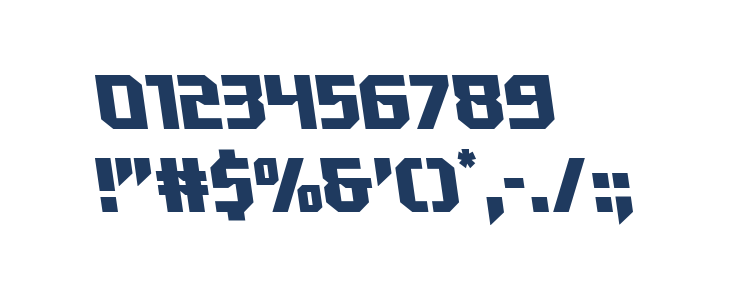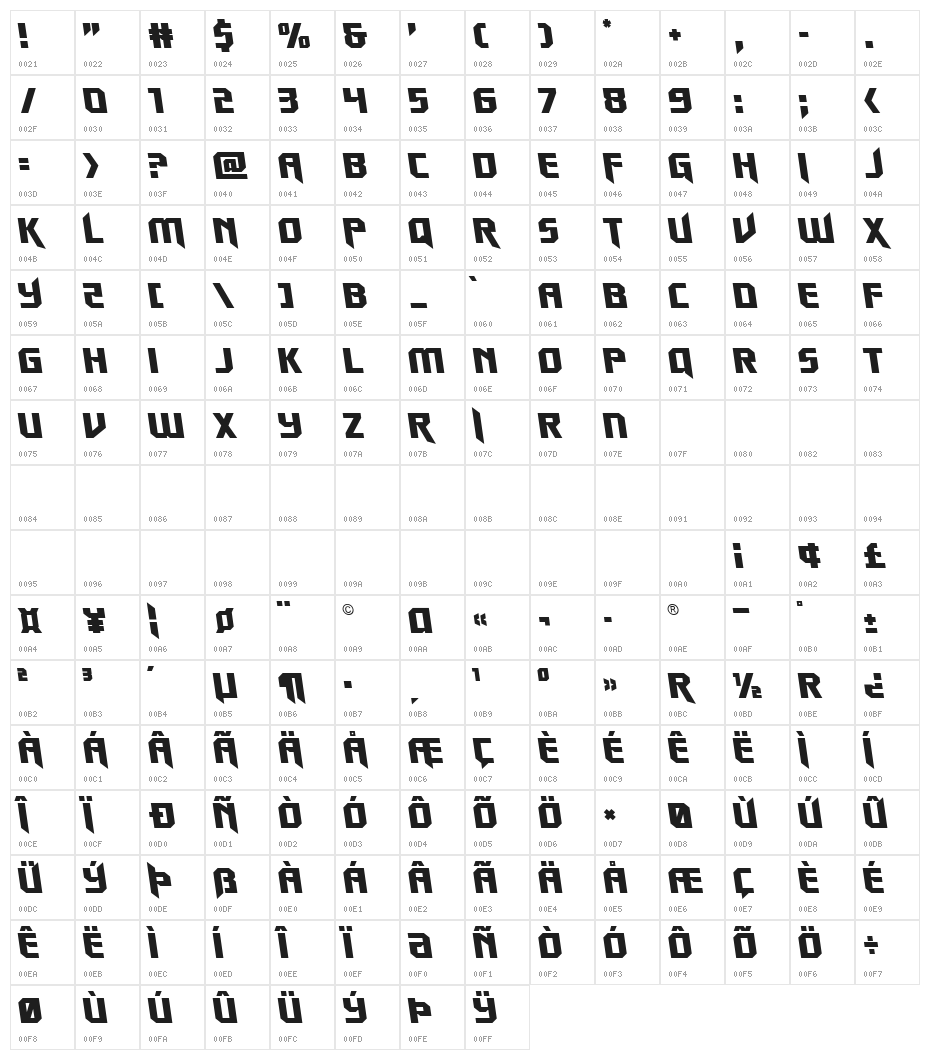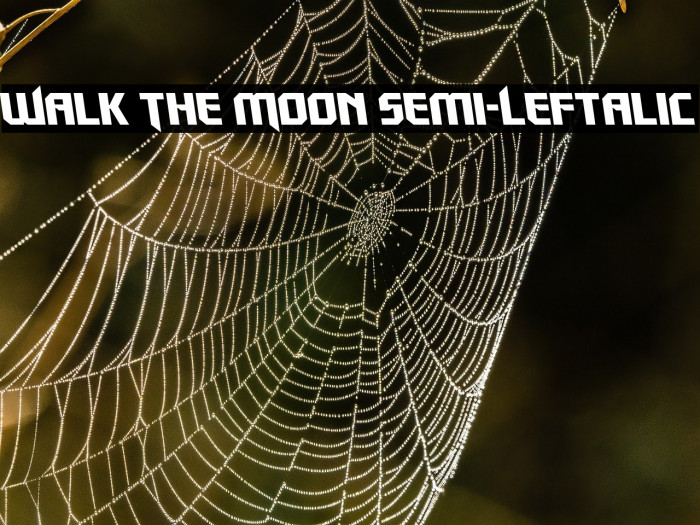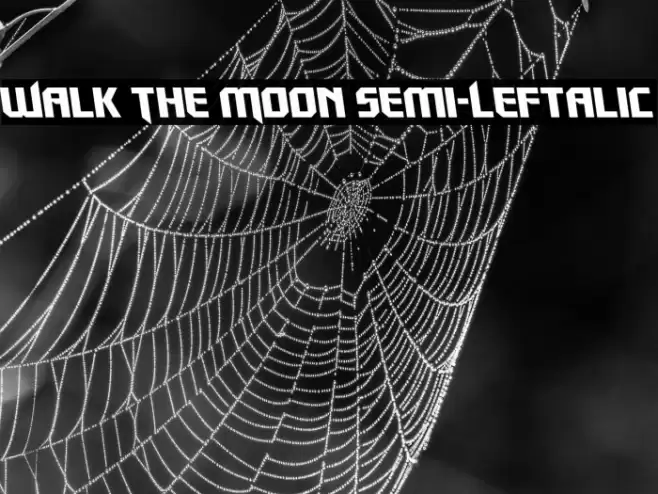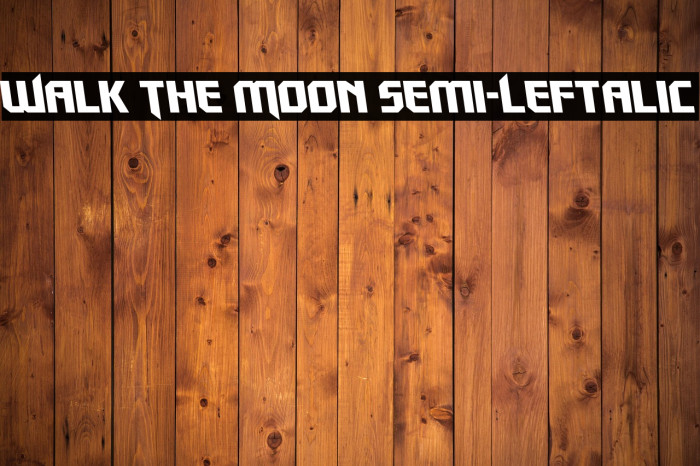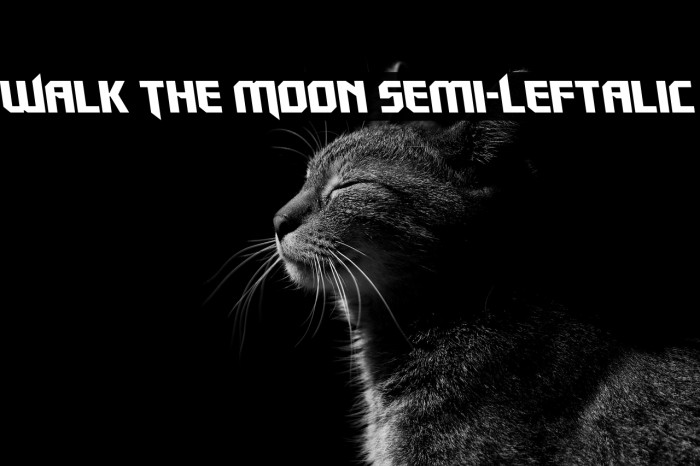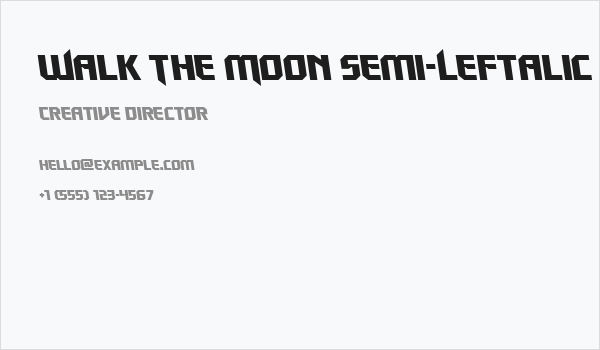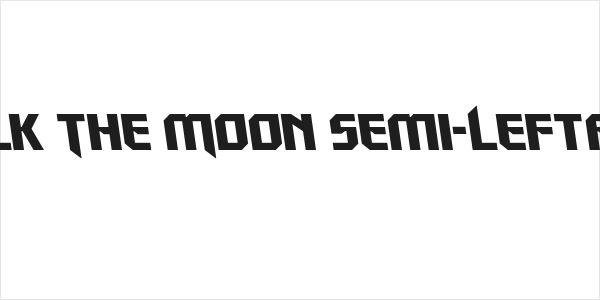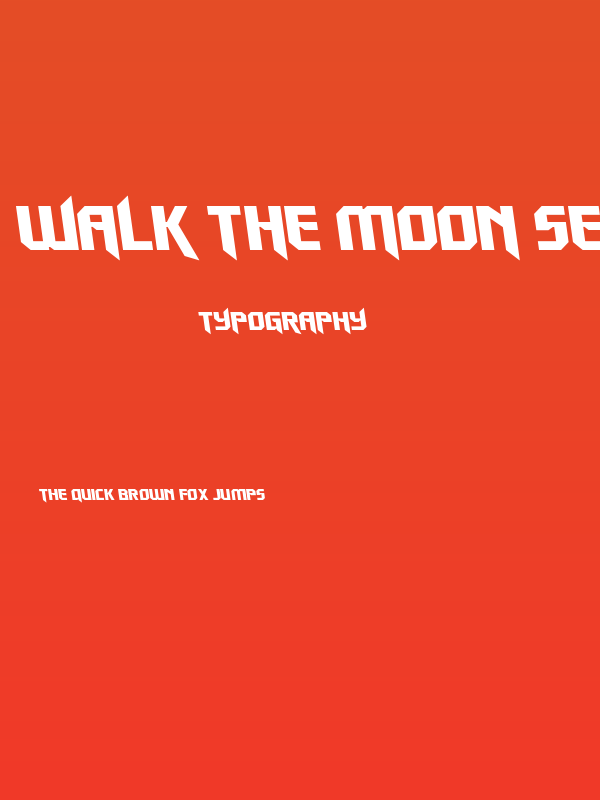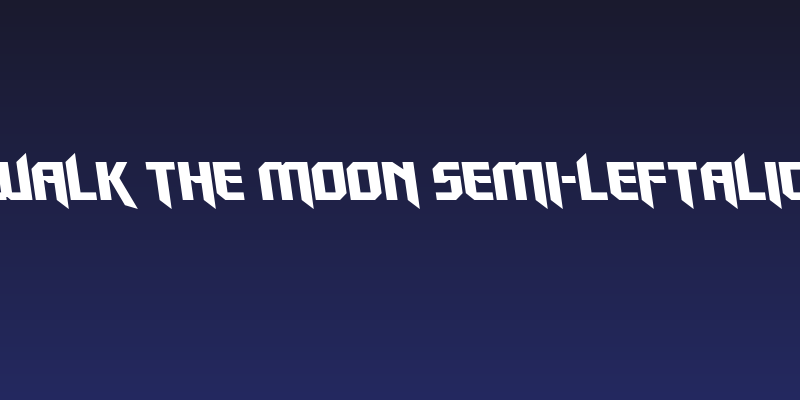
Walk The Moon Semi-Leftalic Font
Walk The Moon Semi-Leftalic Description
This font features a bold, angular design with a strong geometric influence. The characters are sharply defined with a distinct slant, giving them a dynamic and energetic appearance. The uppercase and lowercase letters maintain a consistent style, with the uppercase being slightly more pronounced. Numbers and special characters follow the same angular theme, ensuring uniformity across all glyphs. The font's unique style makes it stand out, ideal for projects that require a modern and edgy look.
| Proposed Projects | Ideal for branding, posters, album covers, and any project needing a modern, edgy aesthetic. |